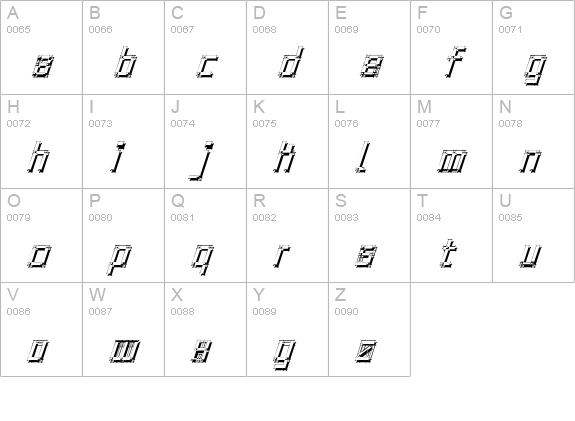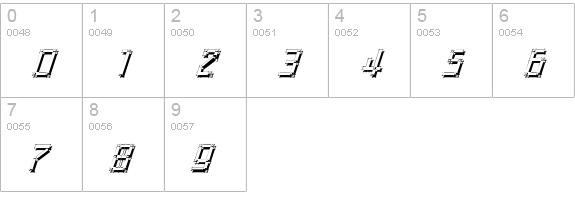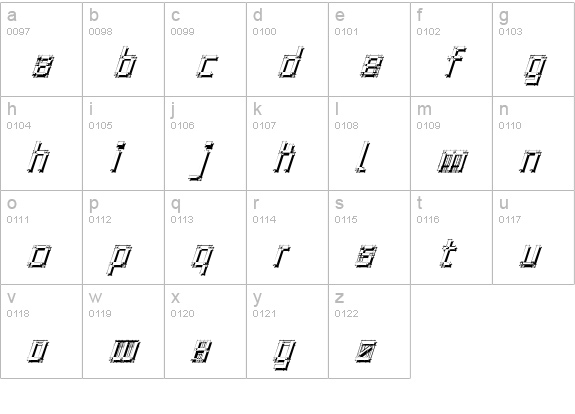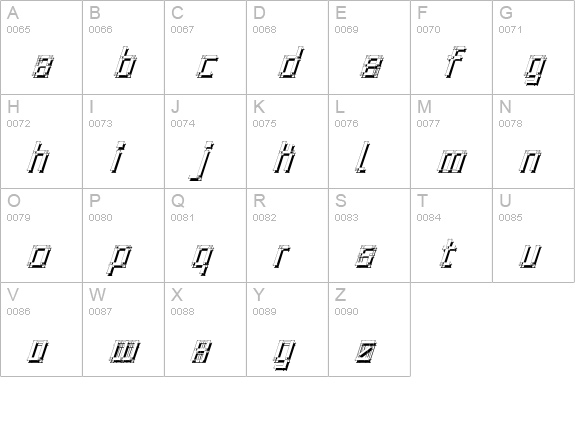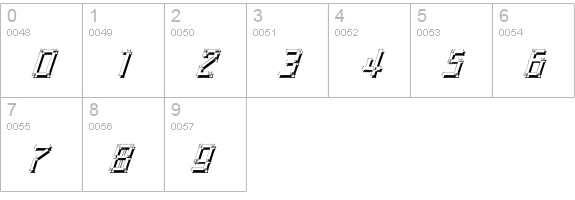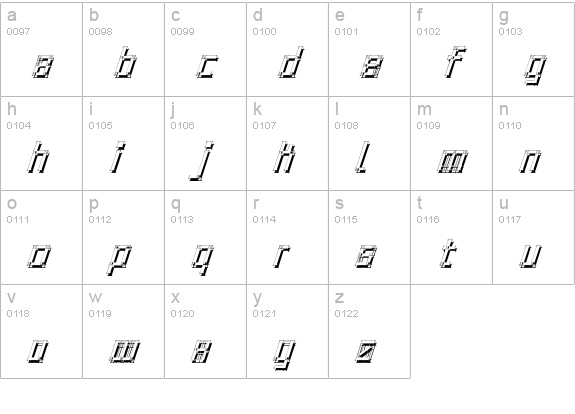
ArchitypoShadow-Oblique Font Details
ArchitypoShadow-Oblique is a distinctive, italic variant in the ArchitypoShadow typeface family \xE2\x80\x94 well suited to design and typography projects.
ArchitypoShadow-Oblique is a striking and modern font that combines sharp angles with a touch of elegance. Its unique oblique design adds a dynamic and edgy feel to any project, making it perfect for eye-catching headlines, titles, and branding. The sharp shadows create a sense of depth and dimension, adding visual interest to your designs. This versatile font is free to download at FontsMarket.com, making it accessible to designers looking to add a contemporary flair to their work without breaking the bank. Whether you're working on a website, poster, logo, or any other creative project, ArchitypoShadow-Oblique is sure to make a bold statement. With its sleek lines and modern aesthetic, this font is a must-have for any designer looking to make a lasting impression.